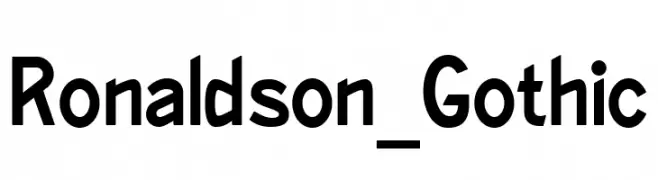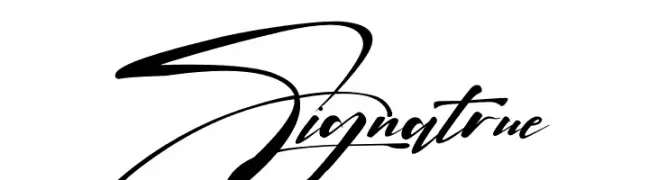
A bold, geometric font with strong, angular lines and a modern aesthetic.
A bold, modern sans-serif font with geometric structure and slight condensation.
A classic Blackletter font with ornate, medieval-style letterforms.
A bold, geometric font with clean lines and a modern aesthetic.
A playful, handwritten font with smooth, flowing curves and a casual style.
A bold, modern sans-serif font with clean lines and strong presence.
A sophisticated handwritten font with fluid, continuous strokes and elegant curves.
An elegant, cursive font with flowing, ornate letters and high contrast.
A sophisticated cursive script font with elegant, flowing strokes.
A playful, bold font with rounded edges and whimsical cut-out details.